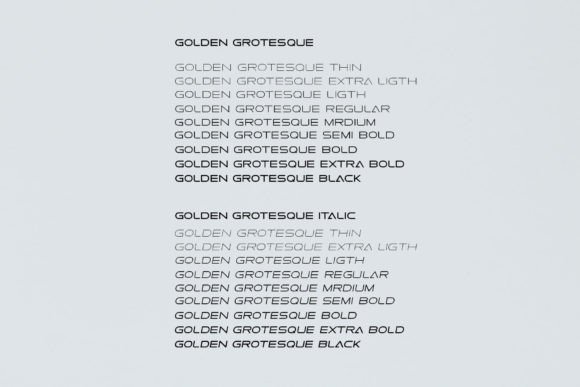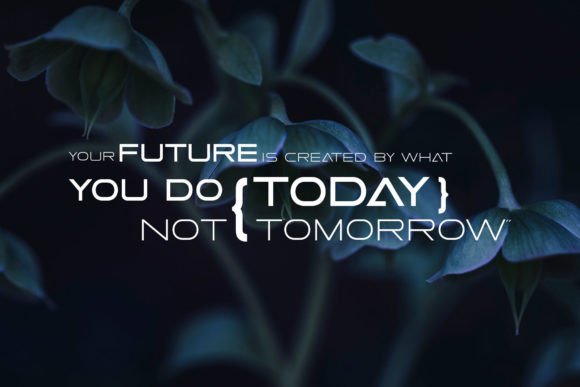
Discover the Timeless Elegance of Golden Grotesque Font
In the world of typography, some fonts stand out for their versatility, elegance, and timeless appeal. The Golden Grotesque Font is one such classic sans serif font that has captured the hearts of designers and crafters alike. With its clean lines, sophisticated look, and adaptability, Golden Grotesque is an incredible asset to any font library, capable of elevating any creative project to new heights.
The Characteristics of Golden Grotesque Font
Golden Grotesque is a sans serif font, meaning it doesn’t have the small lines or flourishes at the ends of the letters, giving it a modern and streamlined appearance. This font family is known for its:
- Clean and Simple Design: The font boasts a straightforward and uncomplicated design, making it highly legible across various mediums, from digital screens to print materials.
- Versatility: Golden Grotesque can be used for a wide range of projects, including but not limited to, branding, advertising, web design, and editorial content. Its adaptability makes it a go-to choice for designers who need a reliable font that works well across different contexts.
- Elegance and Sophistication: Despite its simplicity, Golden Grotesque exudes a sense of elegance and sophistication. It’s perfect for projects that require a touch of class and professionalism.
Why Choose Golden Grotesque Font?
Choosing the right font for a project can be a daunting task, given the numerous options available. However, Golden Grotesque stands out for several reasons:
- Timeless Appeal: Unlike trendy fonts that may quickly become outdated, Golden Grotesque has a timeless quality to it. Its classic design ensures that it remains relevant and stylish for years to come.
- Legibility: The font’s clear and simple design makes it highly legible, even at smaller sizes. This is particularly important for digital content, where readability can significantly impact user experience.
- Emotional Connection: Fonts can evoke emotions and set the tone for a brand or project. Golden Grotesque, with its elegant and sophisticated look, can help create a positive and professional impression on the audience.
Using Golden Grotesque in Design and Crafting Projects
Golden Grotesque’s versatility makes it suitable for a variety of design and crafting projects. Here are some ways you can incorporate this font into your work:
- Branding and Logo Design: Use Golden Grotesque to create a strong and professional brand identity. Its elegance and simplicity make it an excellent choice for logos, especially for businesses in the luxury, technology, or creative sectors.
- Web Design: Enhance your website’s typography with Golden Grotesque. Its legibility on digital screens makes it perfect for headings, body text, or any other content that requires a clean and readable font.
- Print Materials: From brochures and business cards to posters and flyers, Golden Grotesque can elevate your print materials with its sophisticated look.
- Crafting and DIY Projects: If you’re involved in crafting or DIY projects, such as making journals, planners, or art, Golden Grotesque can add a touch of elegance to your creations.
| Font Name | Golden Grotesque Font |
| Author | moriztype |
Golden Grotesque Font is a classic sans serif font that offers a unique combination of elegance, versatility, and timeless appeal. Whether you’re a designer working on a professional project or a crafter looking to add a touch of sophistication to your creations, Golden Grotesque is an excellent choice. Its ability to elevate any project, coupled with its legibility and adaptability, makes it a valuable addition to any font library. By incorporating Golden Grotesque into your design or crafting projects, you can ensure a stylish, professional, and impactful outcome.